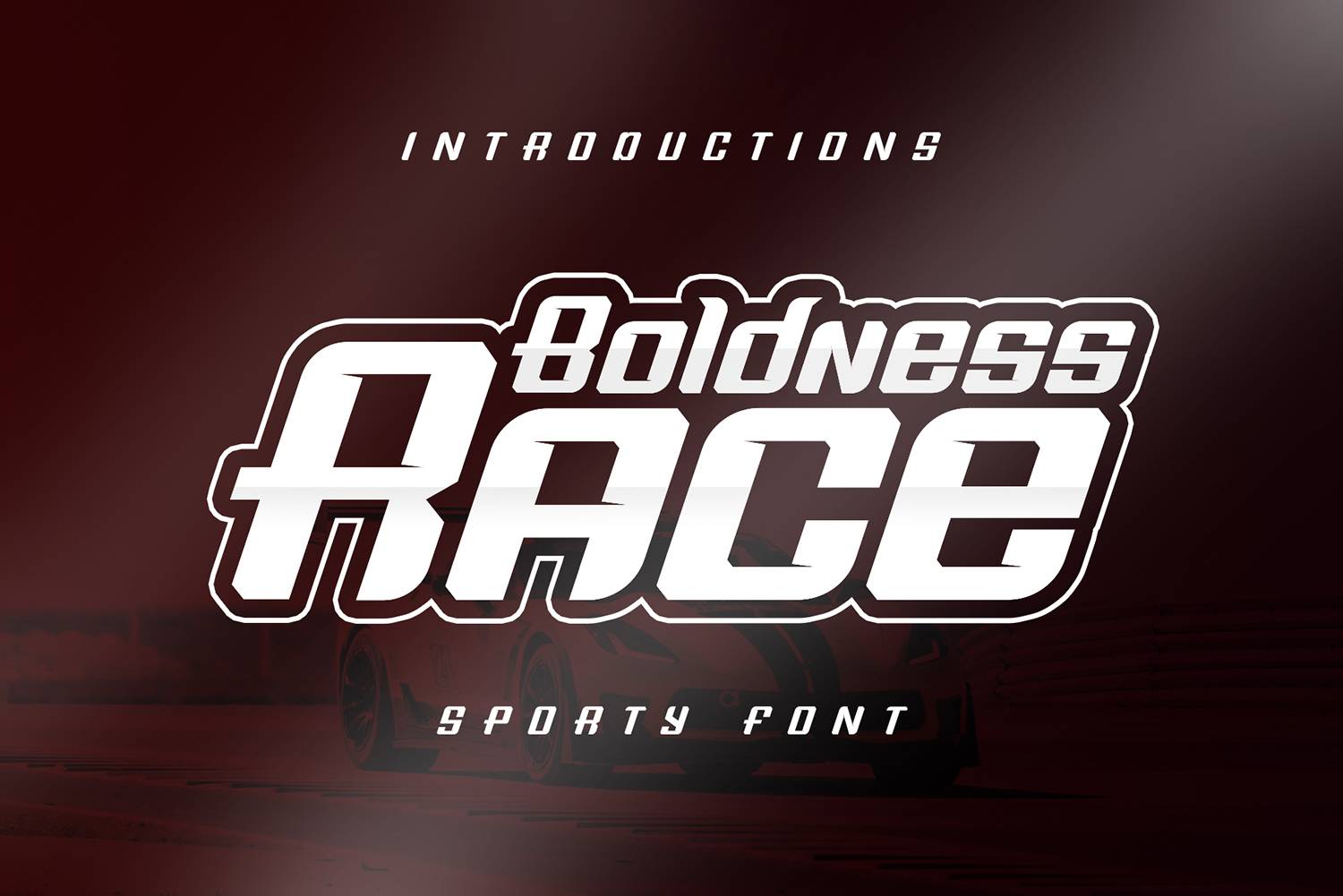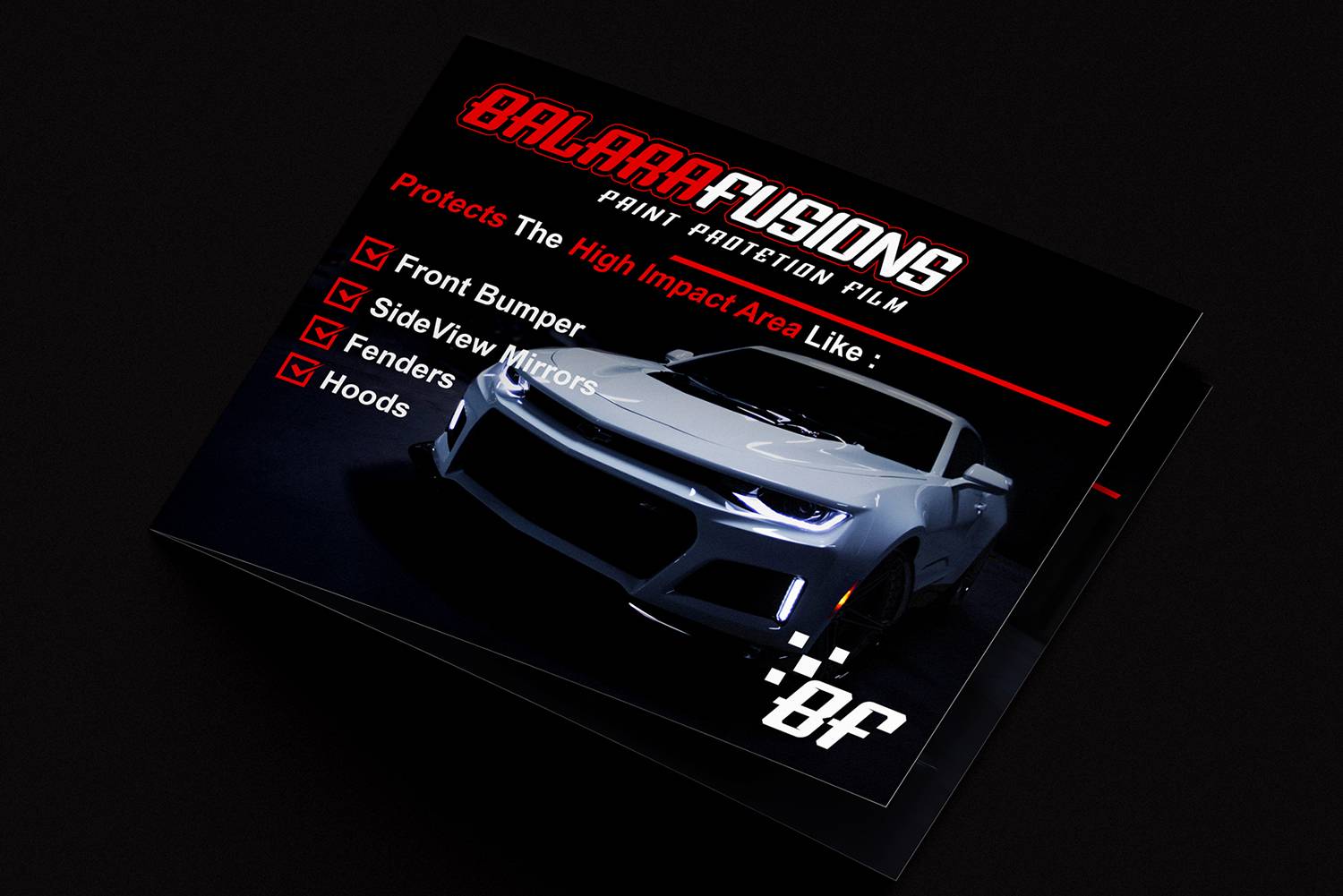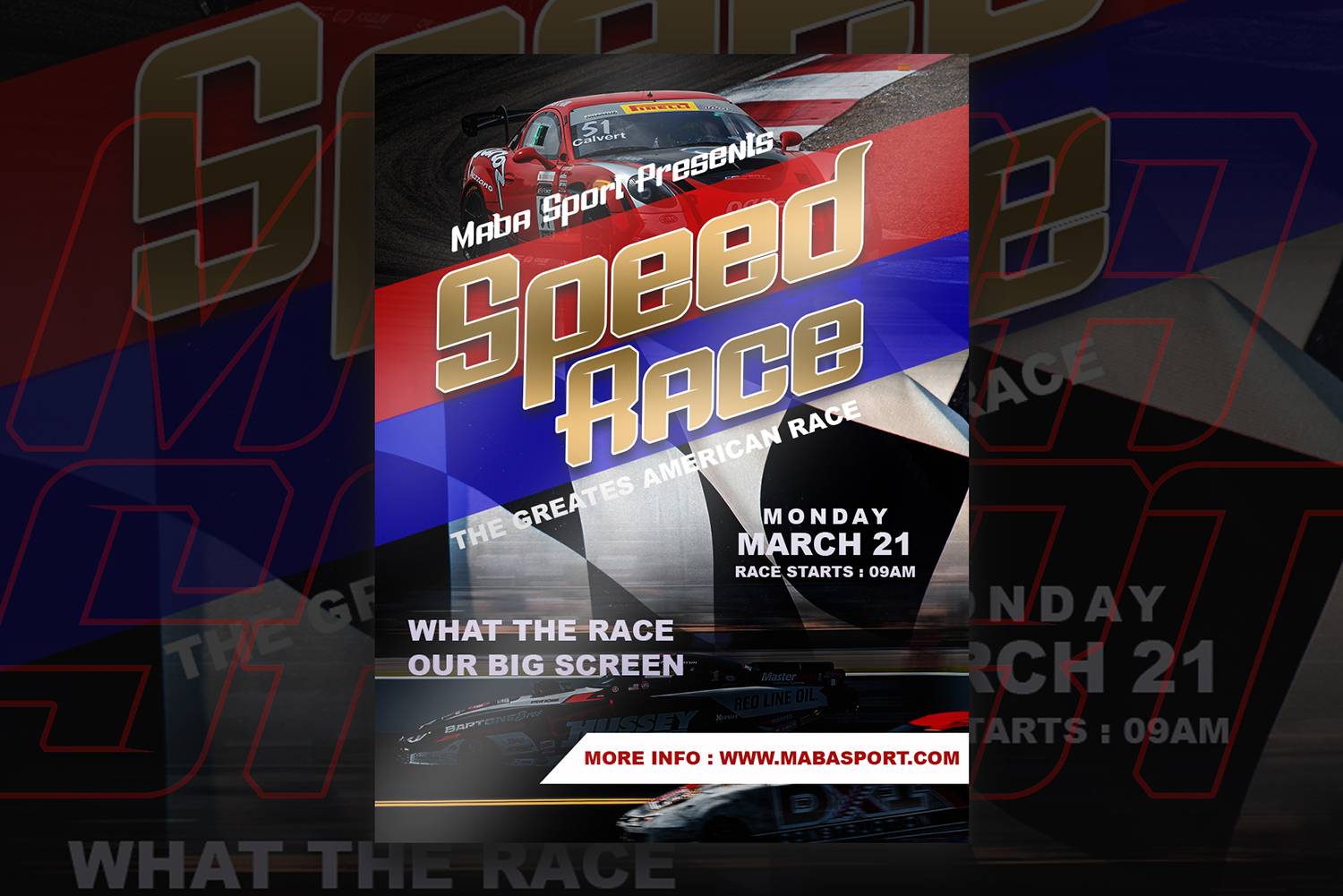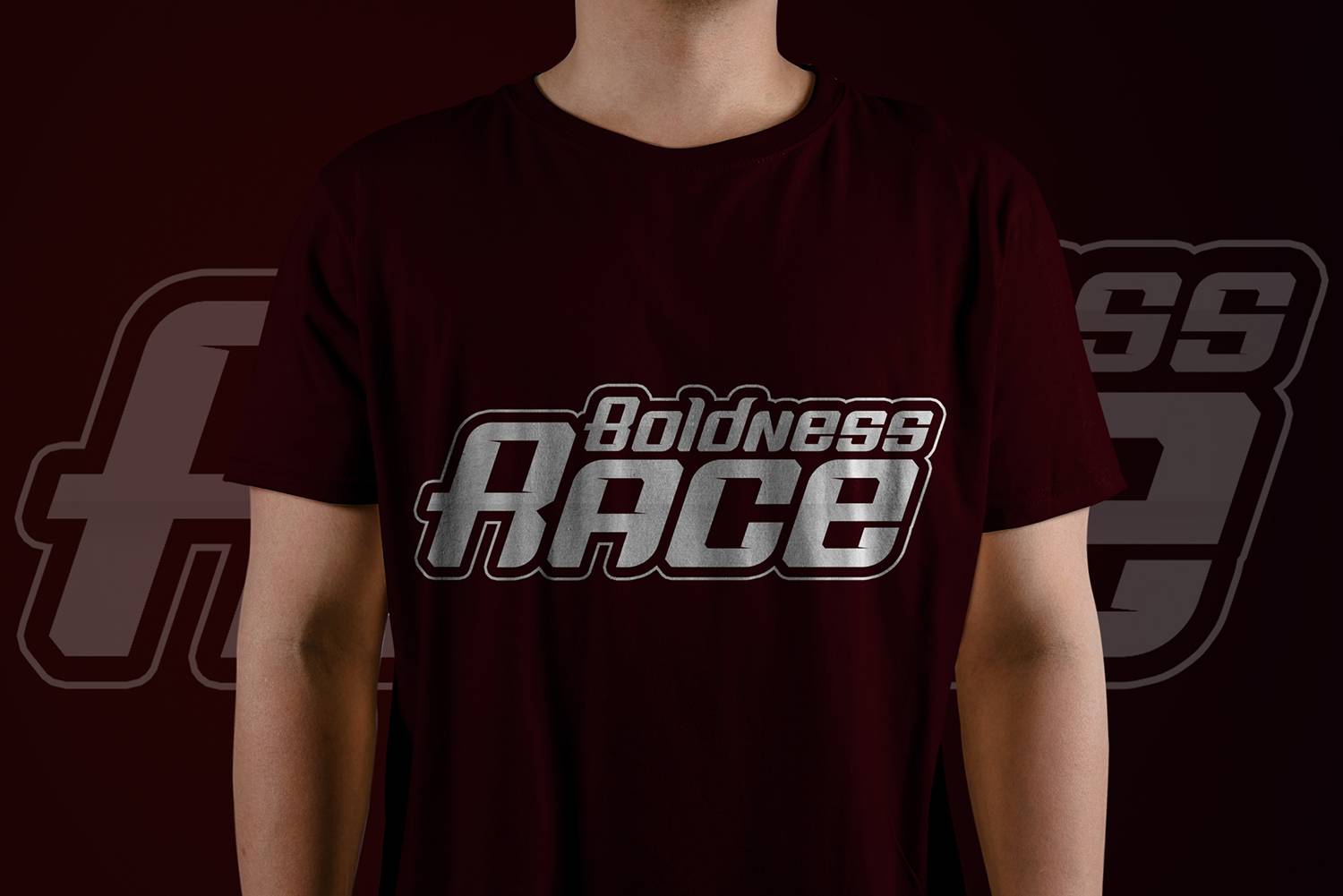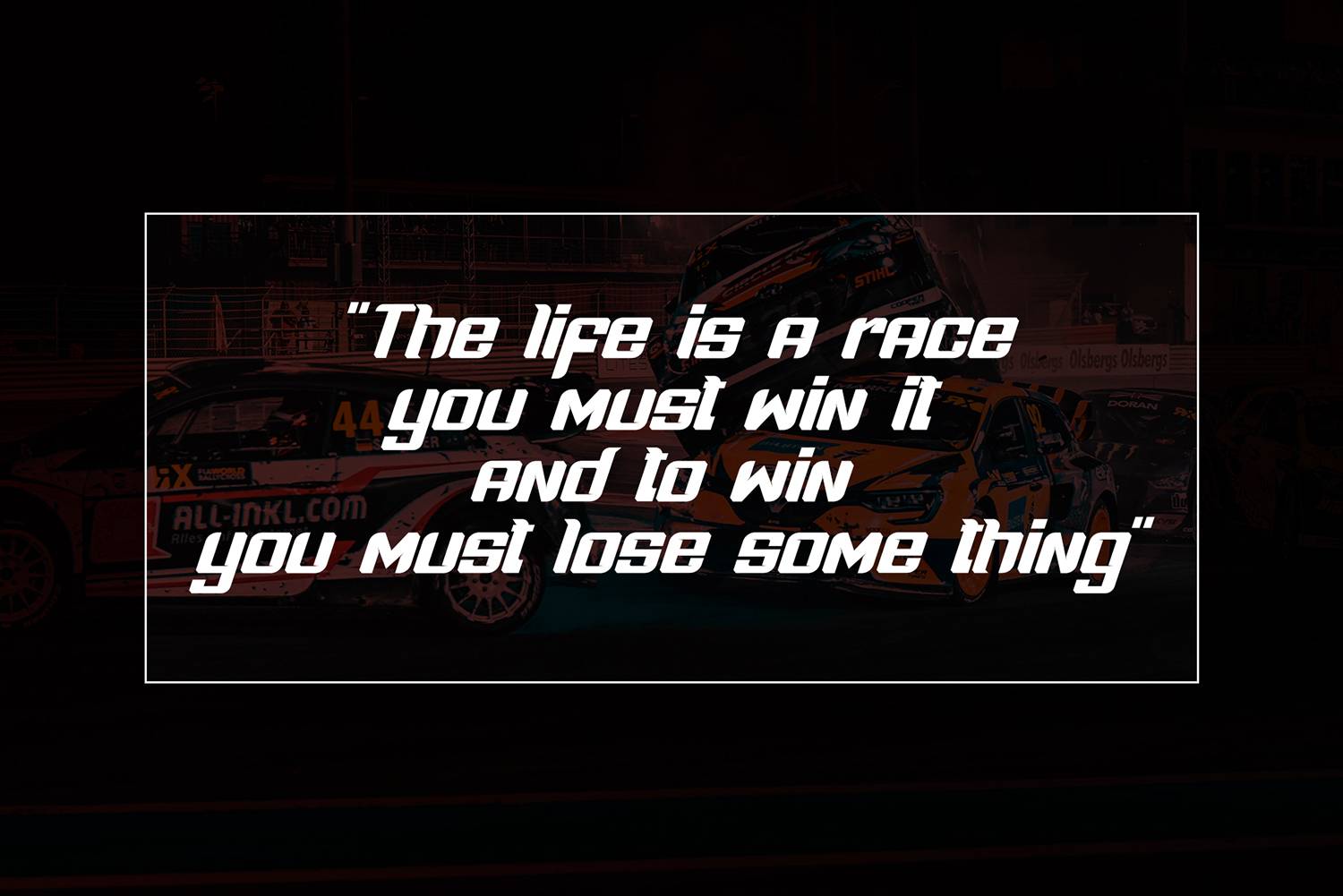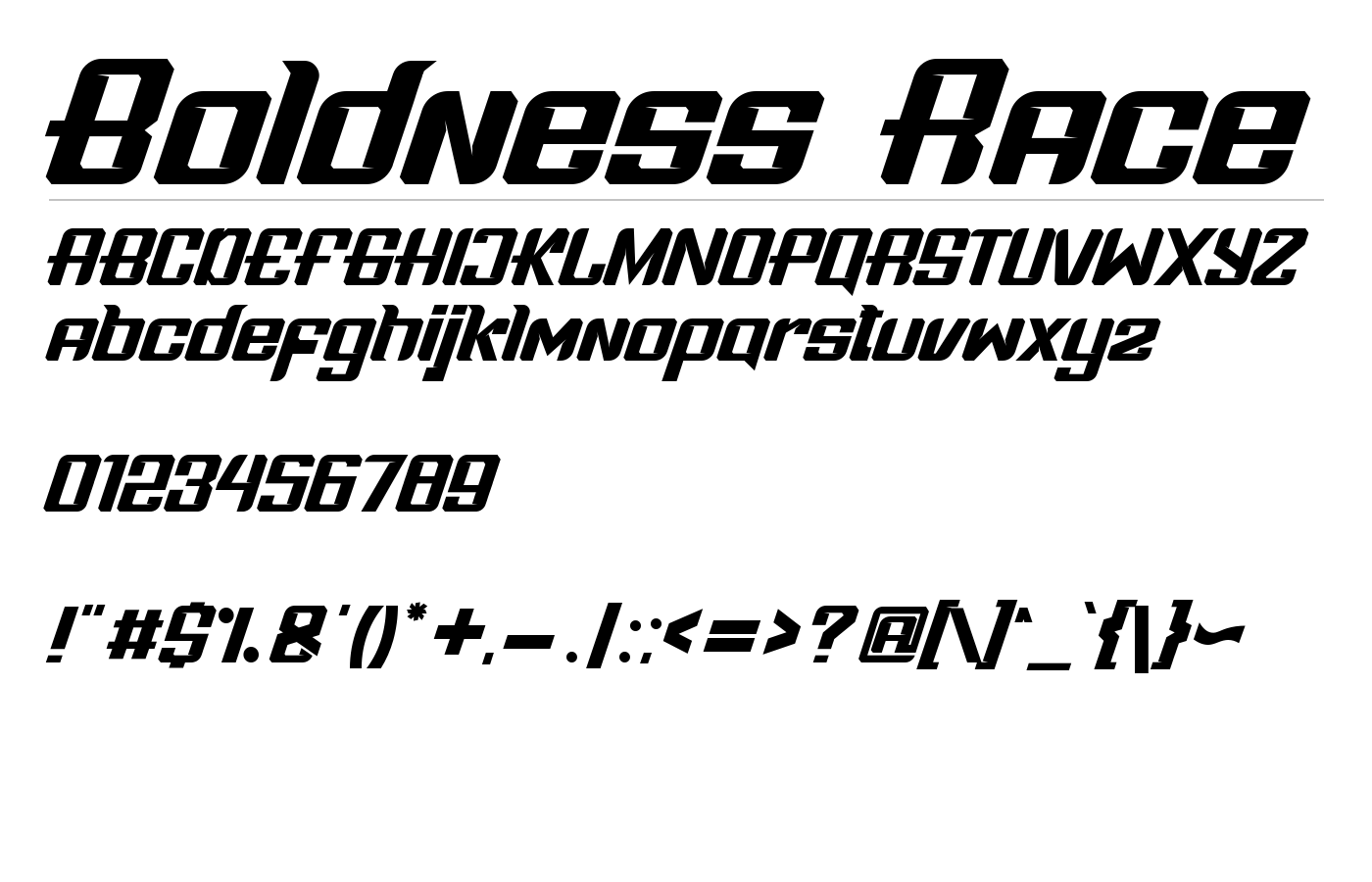
Boldness Race is a dynamic sans serif font with a strong, italicized stance that conveys speed and energy. Its bold weight and condensed letterforms, combined with sharp, angular edges, give it a sporty and modern feel ideal for branding, headlines, and designs that need a sense of movement and power. This font works well in automotive, racing, and athletic contexts where a bold, assertive statement is needed.
Boldness Race Font
About Boldness Race Font
| Font family | Boldness Race Font |
| Release date | 2021-03-04 |
| Designer | Yayan Sihwadi |
| Trademark | Yan Studio ™ |